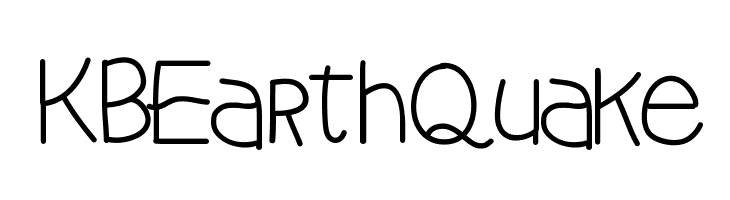
( Fonts by Khrys Bosland )
A playful handwritten font with rounded edges and a casual, friendly style.
( Fonts by Khrys Bosland )
A playful, handwritten font with a casual and whimsical style.
( Fonts by Khrys Bosland )
A playful, handwritten font with a casual and approachable style.
A playful, handwritten font with tall, narrow letters and a casual feel.